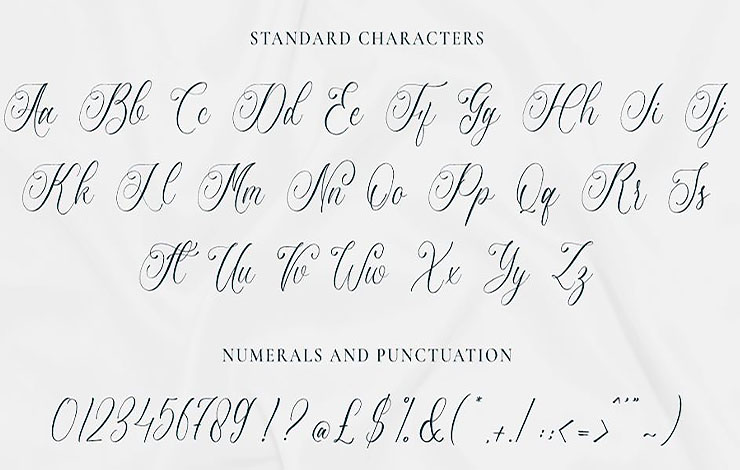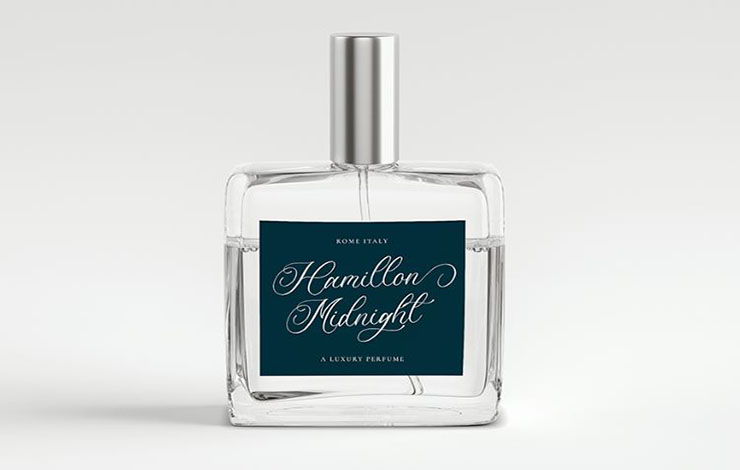
Luxuryone Calligraphy Font is a lovely and delicate script calligraphy typeface that exudes elegance and class. This typeface was designed and published by Hayinah.
It is ideal for making greeting cards, decorative elements, and quotes, posters, advertisements, branding, magazines, and adds a unique personal touch to your designs.
It has a stunning hand-crafted design. And the best part about it is that you see it in every character. Apart from its cool texture, sweeping or soft lines also add to its beauty.
Luxuryone Calligraphy typeface is available in a single weight along with True Type features. This font includes 340 glyphs and 83 ligatures. Moreover, it also supports 63 multilingual languages.
| Style: | Script, Calligraphy, Typeface |
It is suitable for all your design project needs such as logo design, branding, invitation, greeting cards, signatures, covers, posters, social media posts, signatures, covers, posters, product designs, product packaging, shopping bags, cards, brochures, signs, mugs printing, Instagram quotes, birthday cards, wedding cards, and wherever you want.
This font supports 63 multilingual languages. This font includes 340 glyphs and 83 ligatures.
Luxuryone Calligraphy Font is a lovely and delicate script calligraphy typeface that exudes elegance and class. This typeface was designed and published by Hayinah.